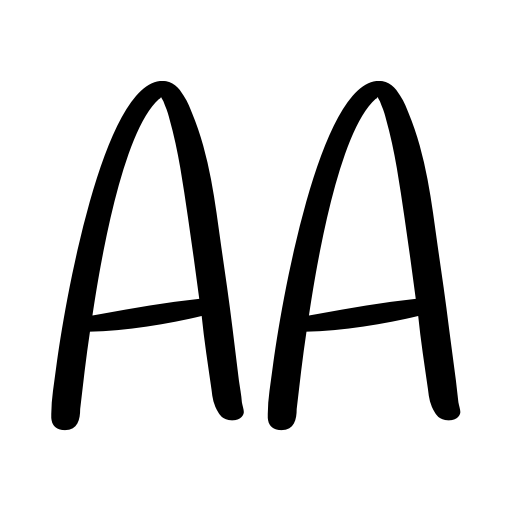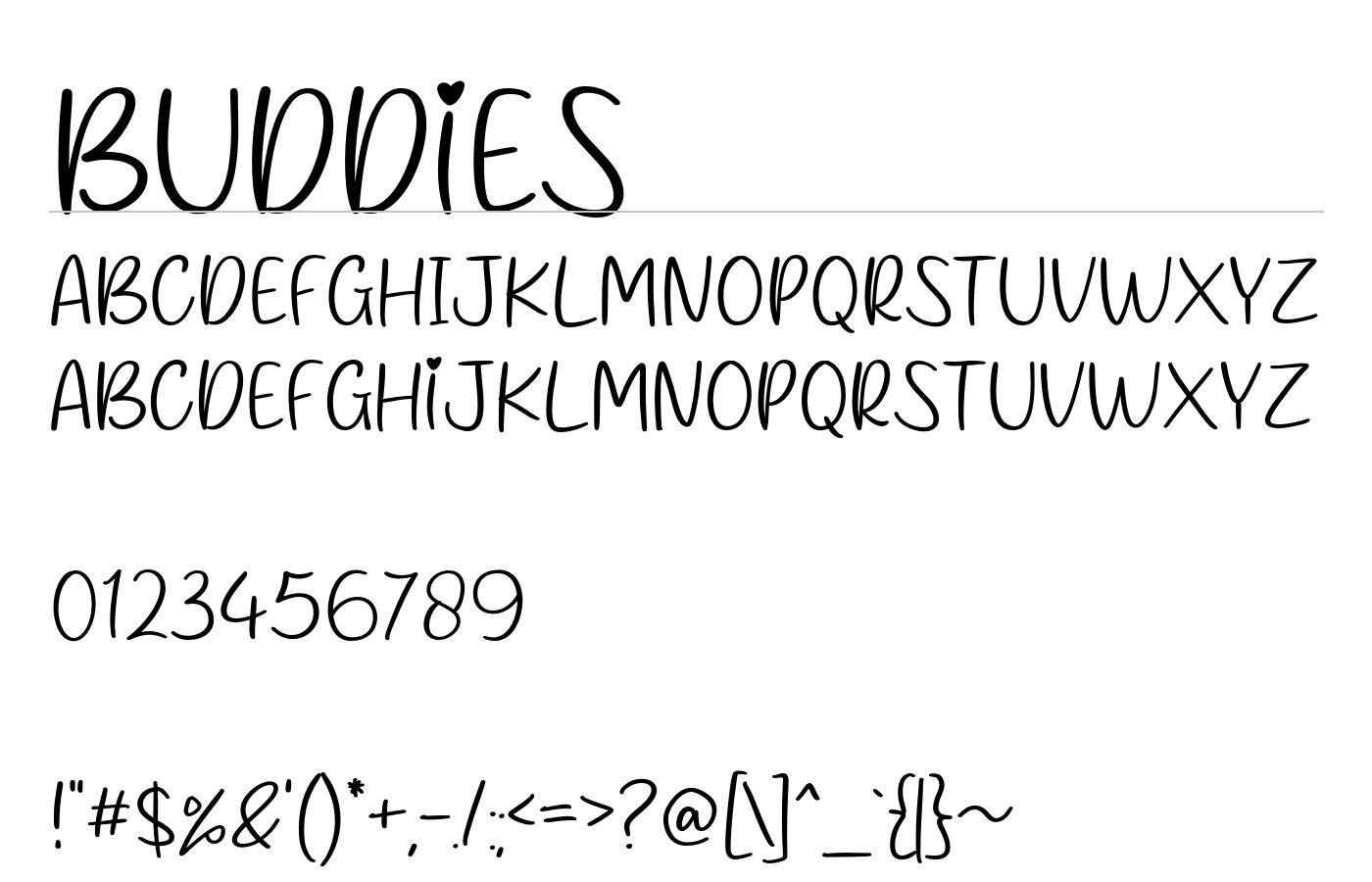
Buddies Font is a playful and friendly handwritten sans serif with a casual, approachable feel. Its thin, slightly irregular strokes and unique heart-tipped "i" give it a warm, personal touch, making it great for informal branding, invitations, or children's materials. This font works well where a fun, lighthearted vibe is desired, adding charm without sacrificing readability.
Buddies Font
About Buddies Font